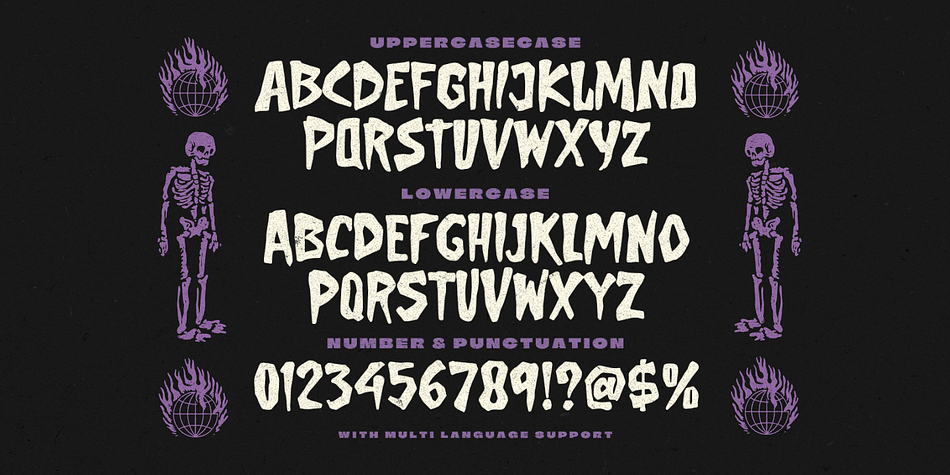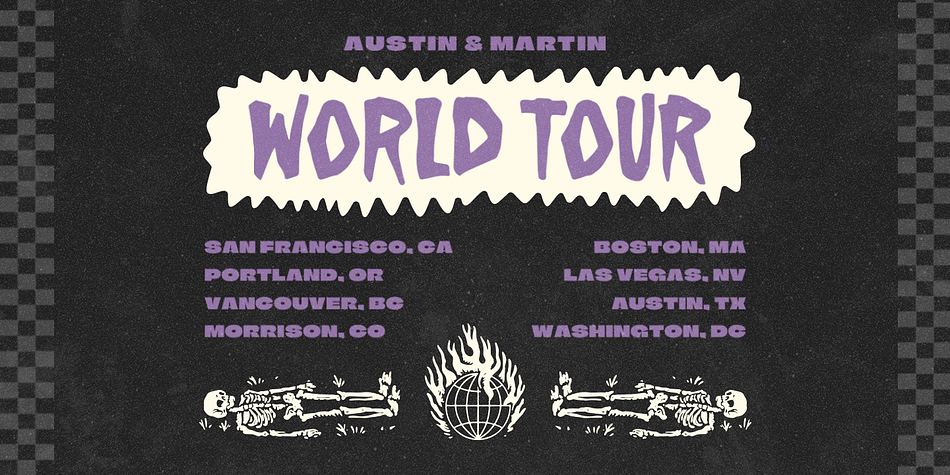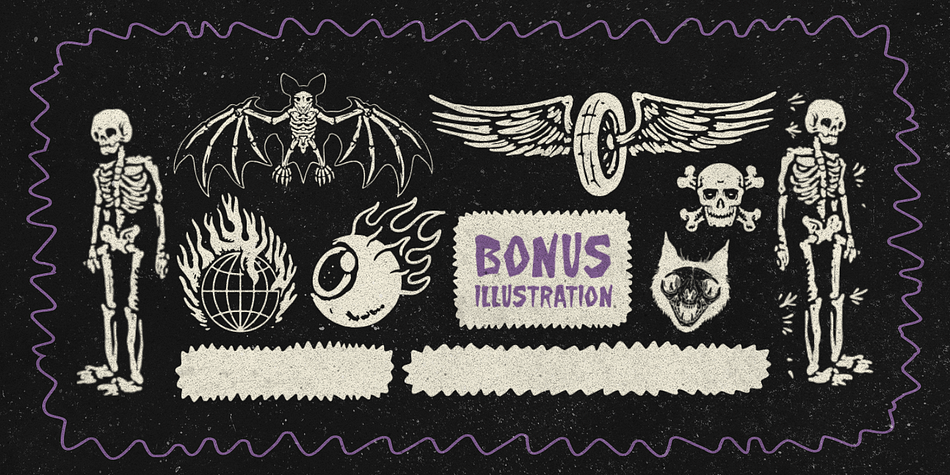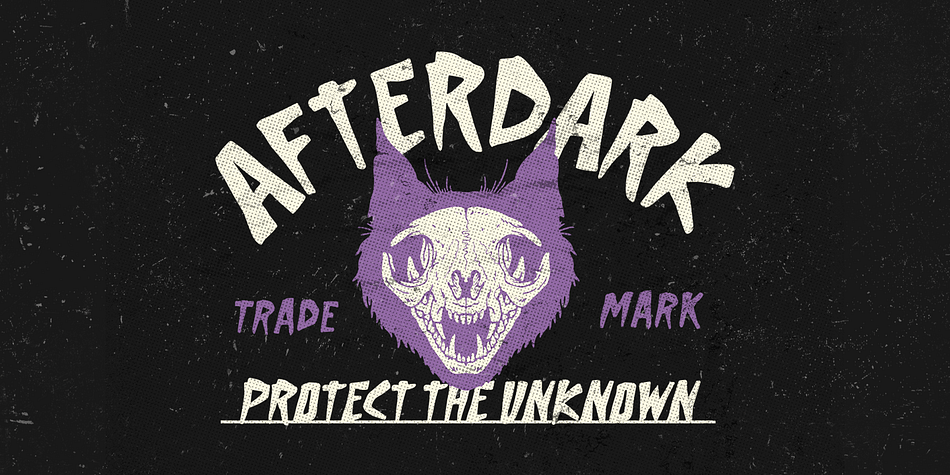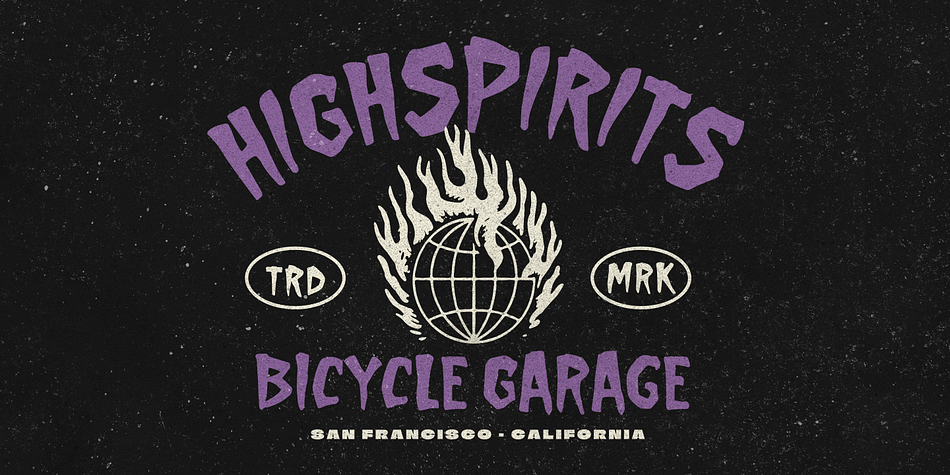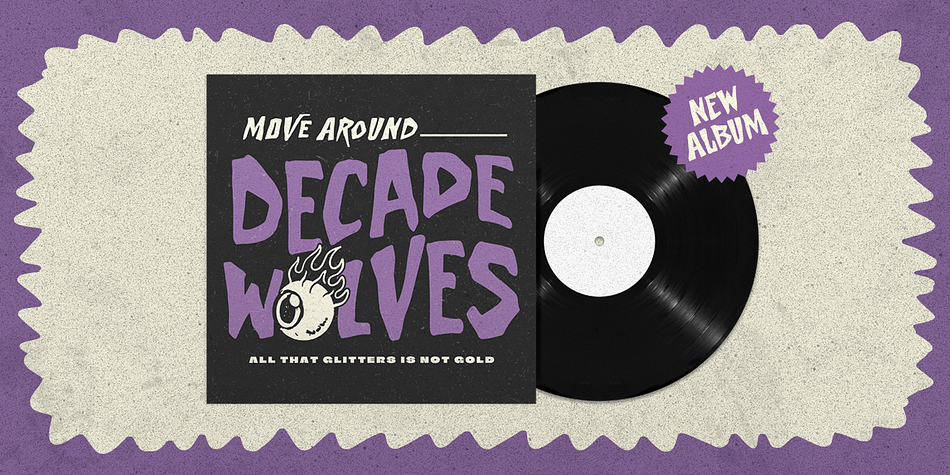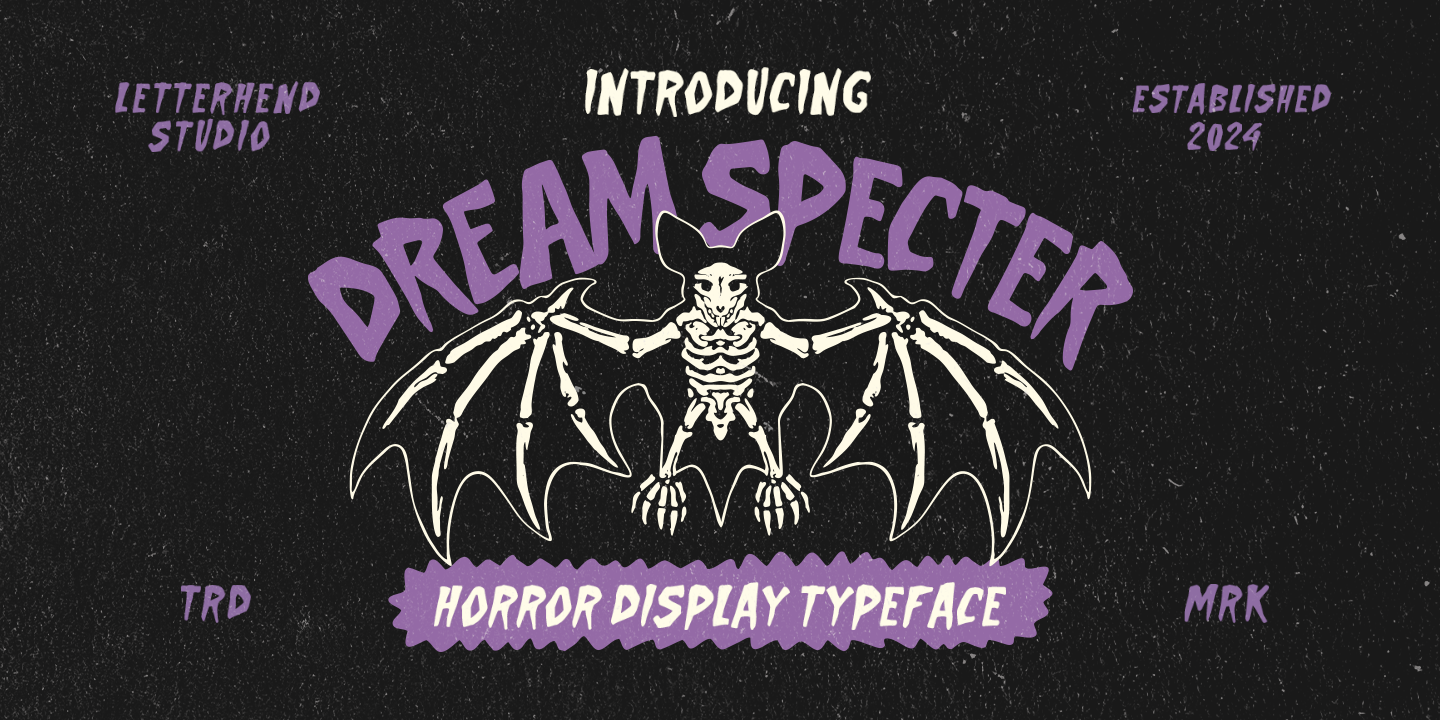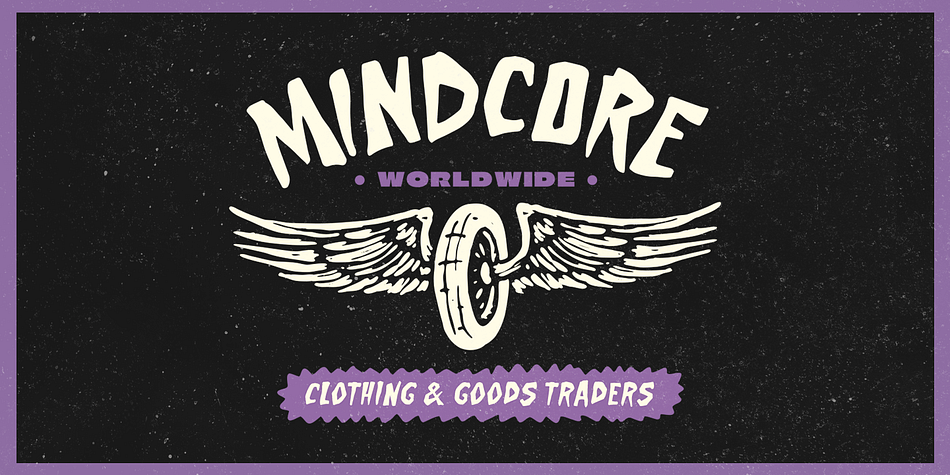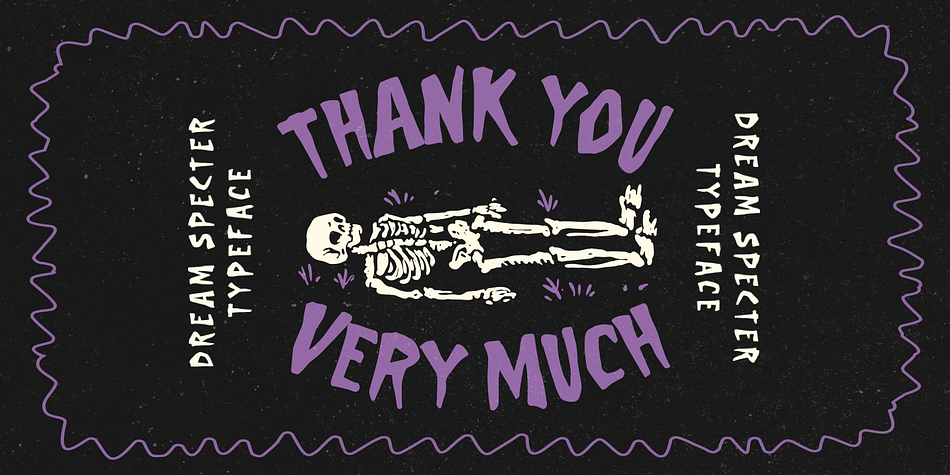
Dream Specter
Designed by Hendry Juanda, Dream Specter is a display font family published by Letterhend Studio.
Introducing, Dream Specter  - A display typeface font with horror feel. This font has unique shape, very suitable for horror, thriller and spooky theme design. This font also perfectly made to be applied especially in logo, and the other various formal forms such as invitations, labels, logos, magazines, books, novels, labels or any type of advertising purpose.
- Alternates & Ligatures